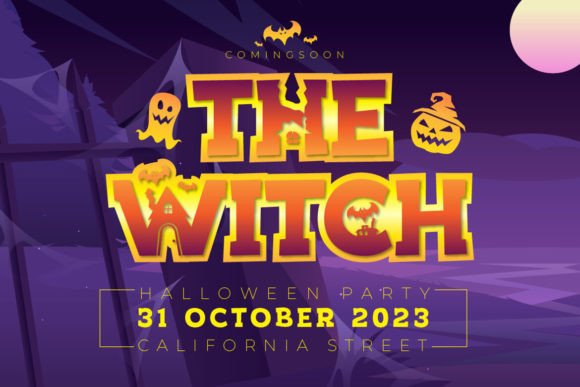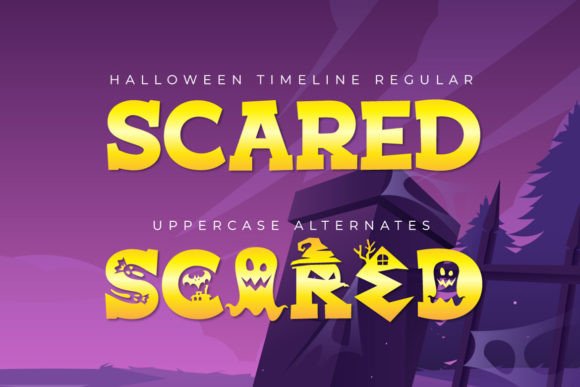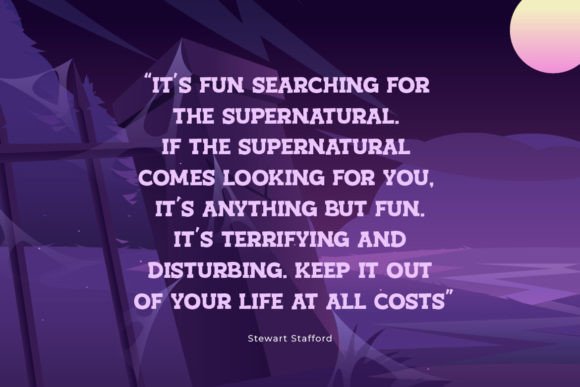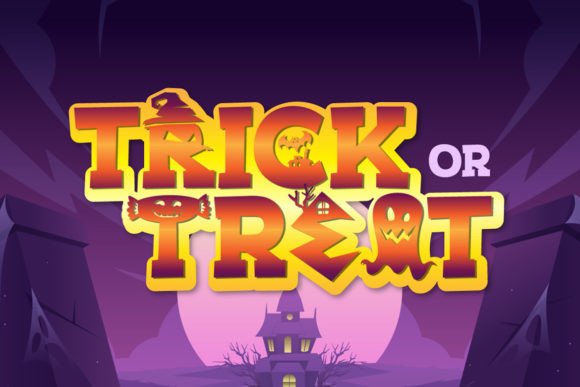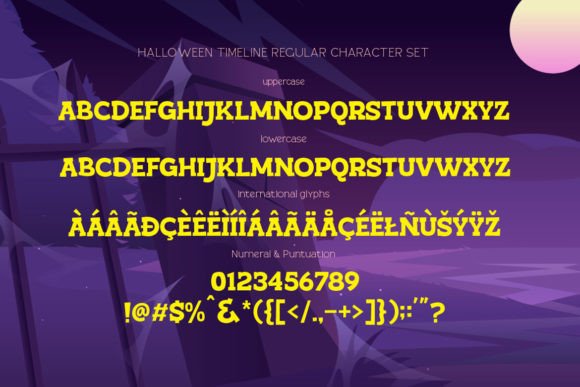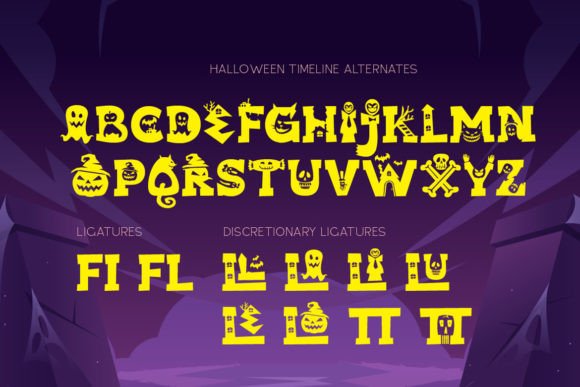
Introduction to Halloween Timeline Font Font
Fonts play a crucial role in design, and the Halloween Timeline Font font is a typeface that brings both character and versatility to any project. Whether you’re working on a branding project, a website, or a print design, the Halloween Timeline Font font offers a unique style that can elevate your work.
| 📌 Font Name | Halloween Timeline Font |
| 👤 Author | Olexstudio |
Halloween Timeline font is a delightfully playful typeface designed to bring spooktacular fun to your Halloween projects.
With its whimsical and eerie alternates, this font captures the essence of the season, making it perfect for party invitations, posters, and spooky decorations Get ready to add a touch of Halloween magic to your designs with Halloween Timeline.
Key Features of Halloween Timeline Font Font
Why Choose Halloween Timeline Font Font?
The Halloween Timeline Font font is more than just a typeface – it’s a design tool that helps you communicate your message with style and clarity. Its unique character set and versatile design make it suitable for a wide range of applications, from elegant invitations to bold headlines.
With its carefully crafted letterforms and balanced proportions, the Halloween Timeline Font font ensures readability and visual appeal across all mediums.
What makes Halloween Timeline Font font special?
The Halloween Timeline Font font stands out with its unique design, exceptional readability, and versatility across various design applications.